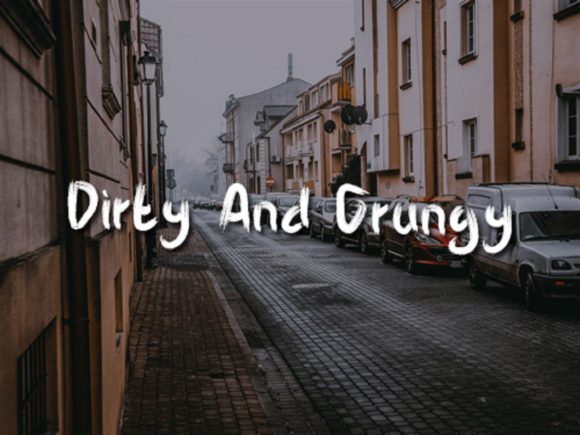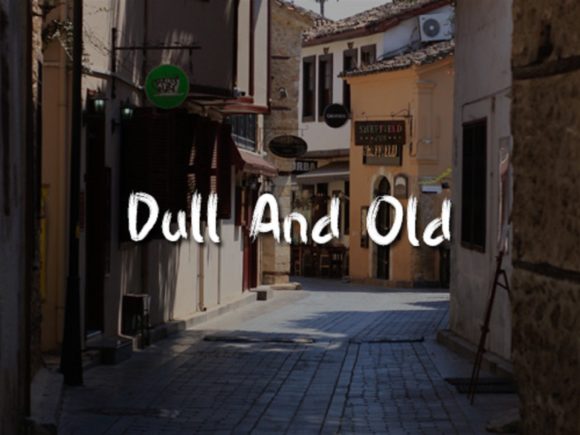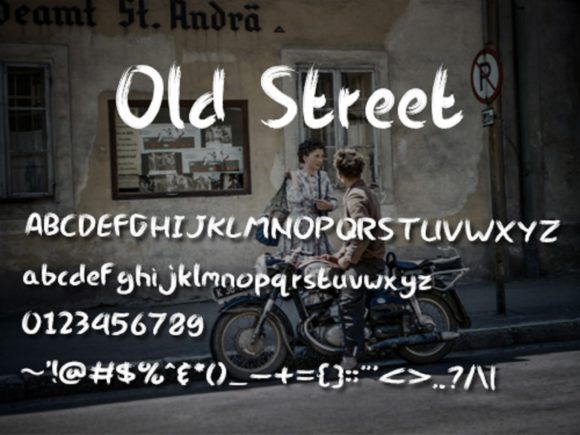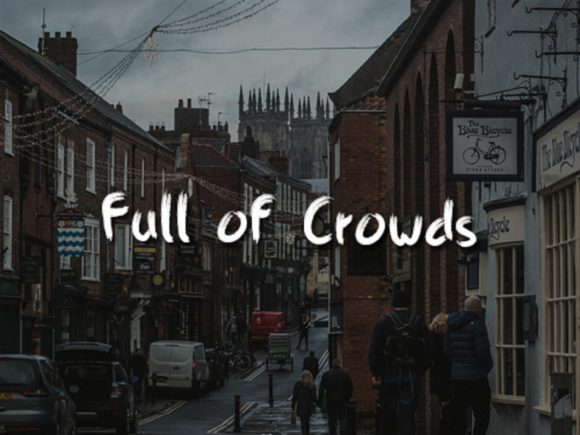
Introduction to Old Street Font
Have you ever found yourself stuck in a creative rut, staring blankly at your computer screen, desperate for the perfect font to bring your project to life? I know I have. That’s why I’m excited to introduce you to the Old Street Font, a cool brushed display font that’s about to become your new best friend.
Whether you’re working on a branding project, designing a poster, or creating a digital graphic, the Old Street Font has the potential to elevate your design and make it truly unforgettable. With its unique, high-quality design, this font is a valuable addition to any designer’s library. And the best part? It’s available for free download, making it an accessible design resource for creatives of all levels.
- High-quality design resource perfect for creative projects, including logos, posters, and more.
- Comes in a single font style, ideal for projects that require a clean and modern aesthetic.
- Designed with a unique blend of vintage and modern elements, adding a touch of sophistication to any design.
Honest Review: Old Street Font
I recently had the chance to work with the Old Street Font on a creative project, and I must say it’s been a game-changer. The font is a high-quality design resource that’s perfect for any project that needs a vintage or distressed look.
- High-quality design: The font is beautifully crafted, with intricate details and a unique character.
- Limited character set: While the font is perfect for headings and titles, it’s not ideal for large blocks of text.
- No bold or italic variations: This can make it difficult to create emphasis or contrast in your design.
Overall, I’m really impressed with the Old Street Font. While it may have some limitations, it’s a fantastic addition to any designer’s toolkit. Whether you’re working on a personal project or a commercial client, this font is sure to deliver high-quality results.
The Old Street Font is perfect for various creative projects, including logos, brochures, and social media graphics. Its high-quality design makes it ideal for businesses and individuals looking for a unique and professional look.